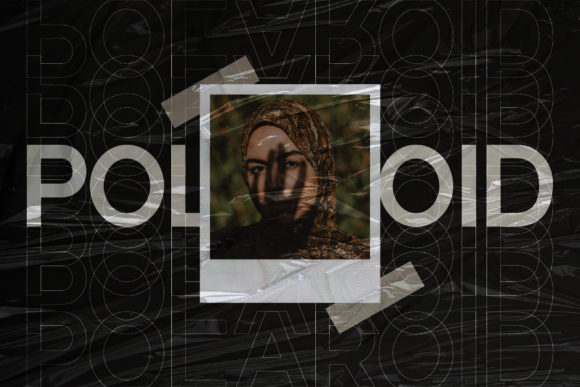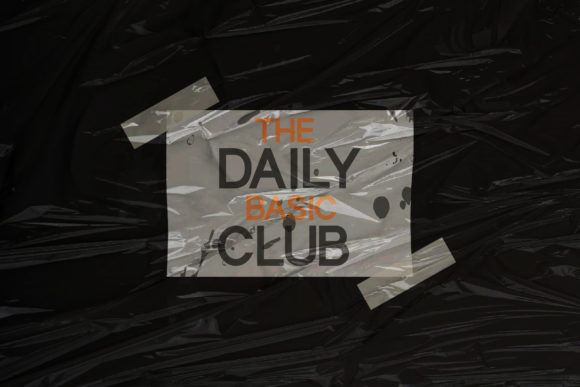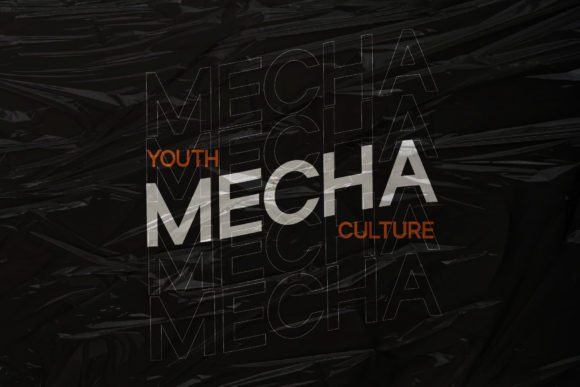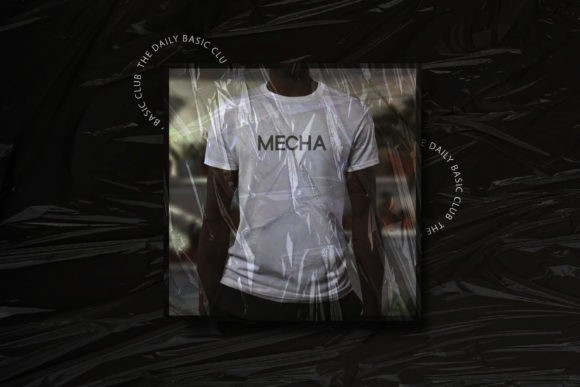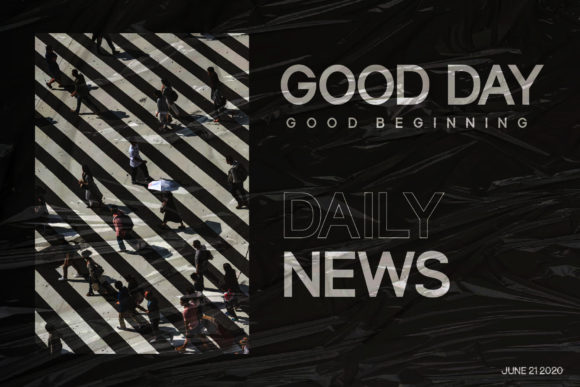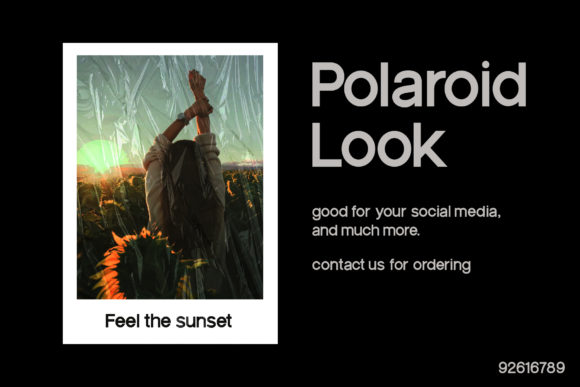
Introduction to Mecha Font
Have you ever stared at a blank page, eager to bring your creative project to life, only to be stuck on the font? The perfect font can make or break the entire aesthetic, and that’s where Mecha Font comes in – a high-quality, free download that’s about to revolutionize your design process.
As designers, we’re always on the lookout for that one special font that elevates our work and gives it a unique edge. Mecha Font is that game-changer, with its clean and minimalistic sans-serif design that’s perfect for a wide range of creative projects. From logos to graphics, this versatile font is sure to make your design stand out, whether you’re working on a personal or professional project.
With its transparent background and sleek design, Mecha Font is an invaluable design resource that’s waiting to be explored. In this article, we’ll dive into the world of Mecha Font and discover why it’s a must-have for any designer looking to take their work to the next level.
Key Features of Mecha Font
- High-Quality Design: Mecha Font is a premium design resource created for creative projects, offering a unique blend of futuristic and industrial elements.
- Unique Character Set: This font features a wide range of unique characters, including alternate glyphs and special symbols, to add an extra layer of creativity to your designs.
Honest Review: Mecha Font
As a designer, I’m always on the lookout for high-quality design resources that can elevate my creative projects. The Mecha Font caught my eye, and I’m excited to share my thoughts on this versatile font.
What works well: ✨ The Mecha Font has a unique blend of modern and futuristic elements, making it perfect for projects that require a bold, edgy look. The font is highly customizable, allowing designers to experiment with different styles and combinations.
- High-quality design: The Mecha Font is a high-quality design resource, suitable for a wide range of creative projects.
Any limitations: ⚠️ While the Mecha Font is highly customizable, it may not be the best choice for projects that require a more subtle, minimalist look. Additionally, the font’s bold style may not be suitable for all audiences.
Overall, I’m impressed with the Mecha Font’s versatility and high-quality design. It’s an excellent addition to any designer’s toolkit, and I would highly recommend it for creative projects that require a bold, futuristic look.
To get the most out of Mecha Font, use it in conjunction with other design elements that fit your theme. Experiment with different font sizes, colors, and styles to create a unique and eye-catching design. You can also use Mecha Font as a design element in the background to add depth and interest to your design.
Mecha Font is perfect for science fiction-themed projects, futuristic designs, and technology-related concepts. It’s also great for creating attention-grabbing headlines or titles for your creative projects. With its high-quality design and transparent background, Mecha Font is a valuable design resource for any creative project.